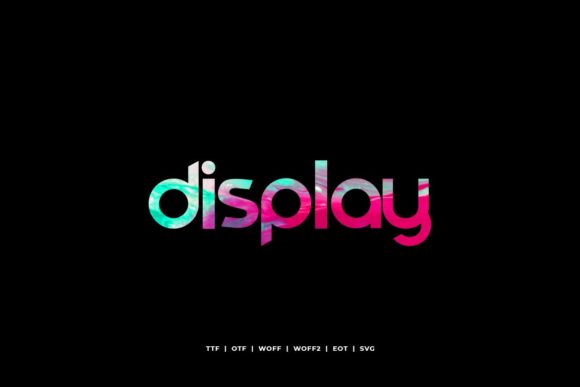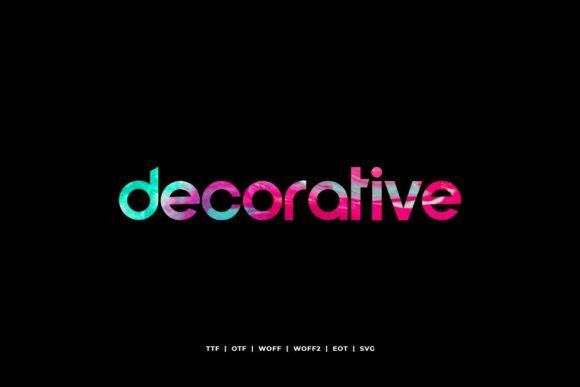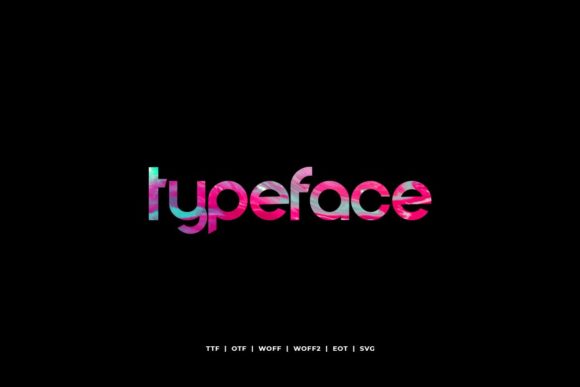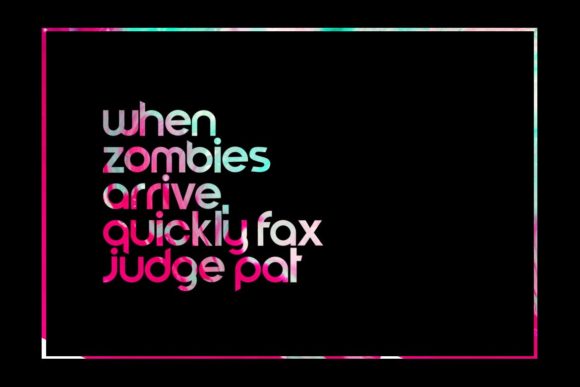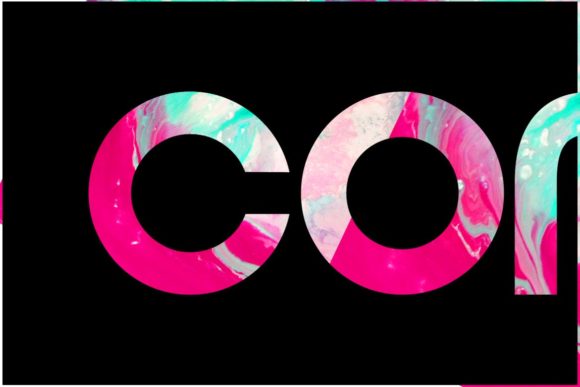
Introducing Comodo Font: The Perfect Blend of Modern Elegance and Futuristic Style
Are you a designer or crafter looking for a font that embodies the perfect blend of contemporary elegance and futuristic style? Look no further than Comodo Font. This bold and modernistic sans serif font has been designed to smoothly fuse the sophistication of modern design with the sleekness of futuristic typography.
What is Comodo Font?
Comodo Font is a sans serif font that boasts a clean and minimalist design. Its sleek lines and curves make it perfect for a wide range of design applications, from logo design and branding to digital marketing materials and craft projects. The font’s modernistic approach to typography makes it an excellent choice for designers who want to create a bold and eye-catching visual statement.
Key Features of Comodo Font
- Bold and Modern Design: Comodo Font features a bold and modern design that is perfect for making a statement.
- Sans Serif: The font’s sans serif design makes it clean and easy to read, even at small sizes.
- Contemporary Elegance: Comodo Font’s elegant lines and curves give it a sophisticated and refined feel.
- Futuristic Style: The font’s futuristic style makes it perfect for designers who want to create a bold and eye-catching visual statement.
- Versatile: Comodo Font can be used for a wide range of design applications, from logo design and branding to digital marketing materials and craft projects.
Who Can Benefit from Using Comodo Font?
Comodo Font is perfect for a wide range of designers and crafters, including:
- Graphic Designers: Comodo Font is perfect for graphic designers who want to create bold and eye-catching visual statements for their clients.
- Logo Designers: The font’s clean and minimalist design makes it perfect for logo design and branding applications.
- Digital Marketers: Comodo Font’s modernistic approach to typography makes it perfect for digital marketing materials, such as social media graphics and email marketing campaigns.
- Crafters: The font’s elegant lines and curves make it perfect for craft projects, such as handmade cards and invitations.
How to Use Comodo Font
- Experiment with Different Sizes: The font’s clean and minimalist design makes it easy to read, even at small sizes.
- Use it for Headings and Titles: Comodo Font is perfect for headings and titles, where its bold and modern design can really make an impact.
In conclusion, Comodo Font is a bold and modernistic sans serif font that smoothly fuses contemporary elegance with a futuristic style. Its clean and minimalist design makes it perfect for a wide range of design applications, from logo design and branding to digital marketing materials and craft projects. Whether you’re a graphic designer, logo designer, digital marketer, or crafter, Comodo Font is a great choice for anyone looking to create a bold and eye-catching visual statement.